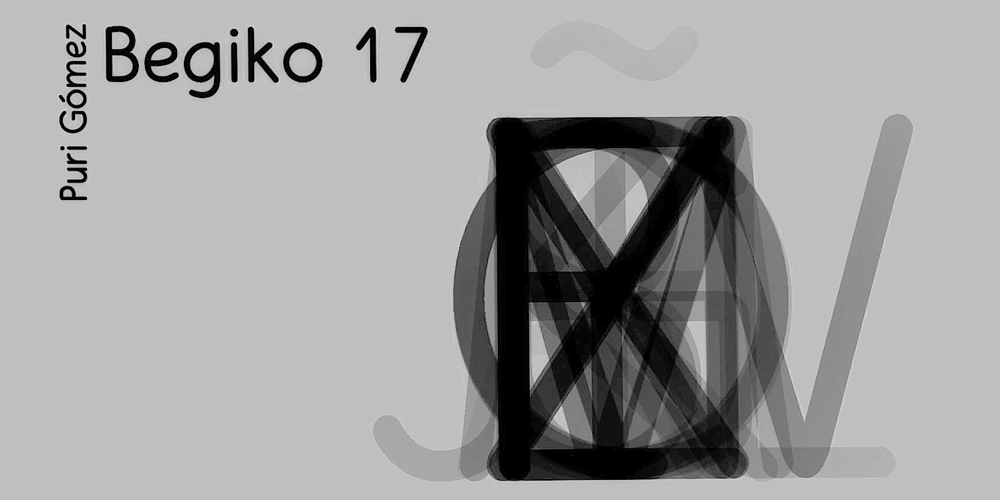
Begiko 17 Font Family was designed by Puri Gómez and published by Begiko. Begiko 17 contains 3 styles and family package options. Begiko17 is a monoline typeface family which was designed to be a font of ease lecture with features in the rhythm and proportions of school writing. In addition to the standard characters, Begiko17 includes several useful mathematical characters. Its strength relies in the clarity, simplicity and harmony of its traces.